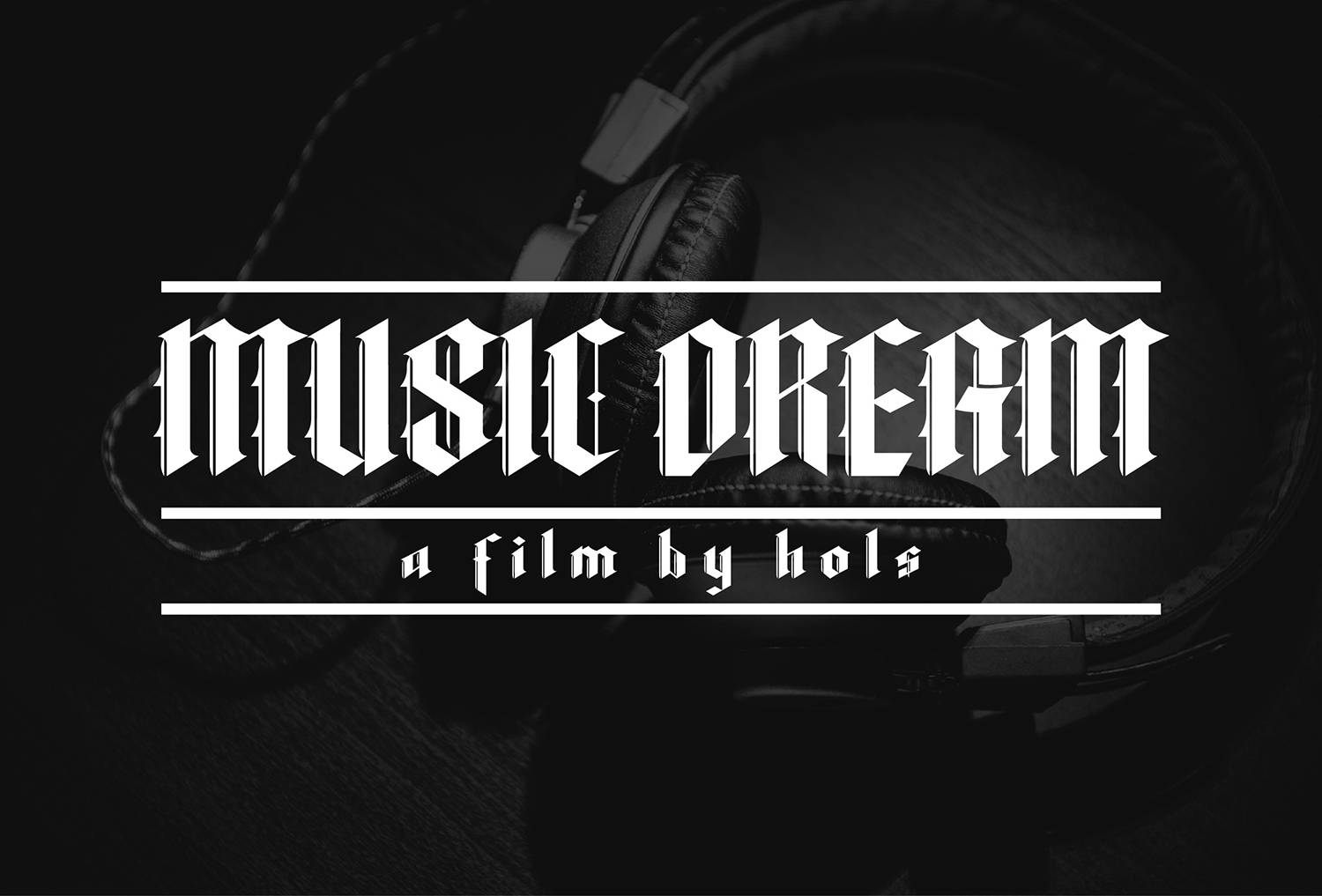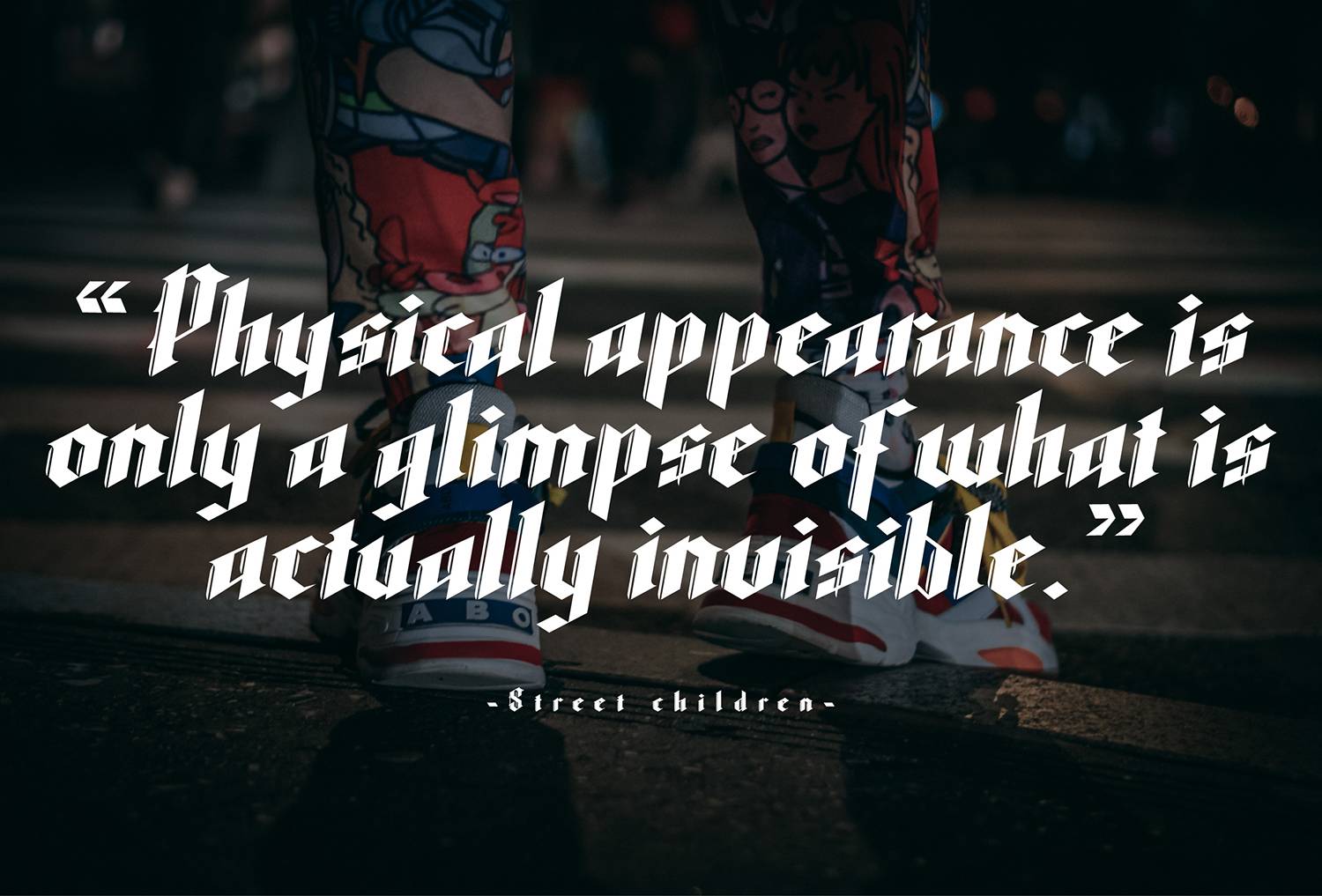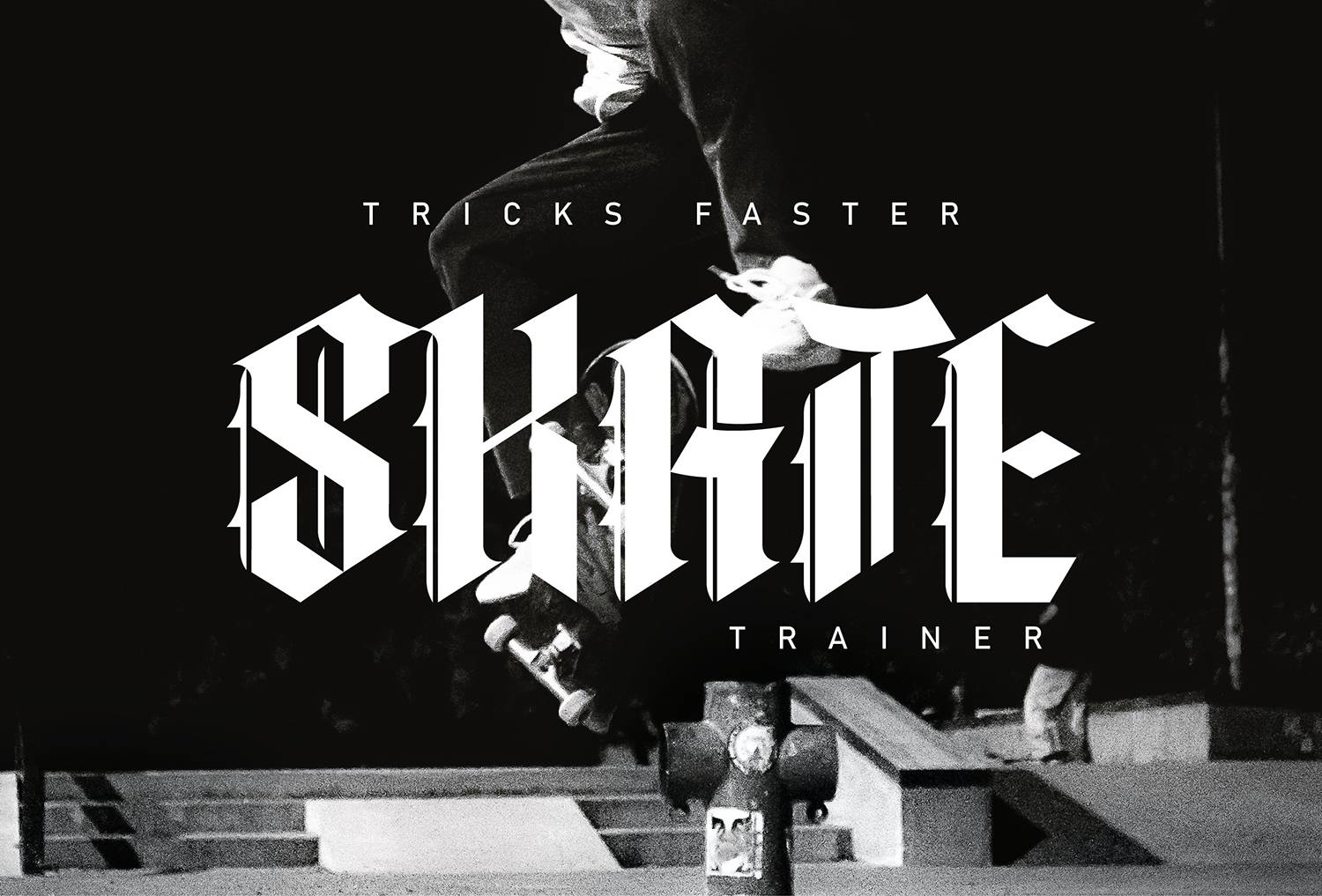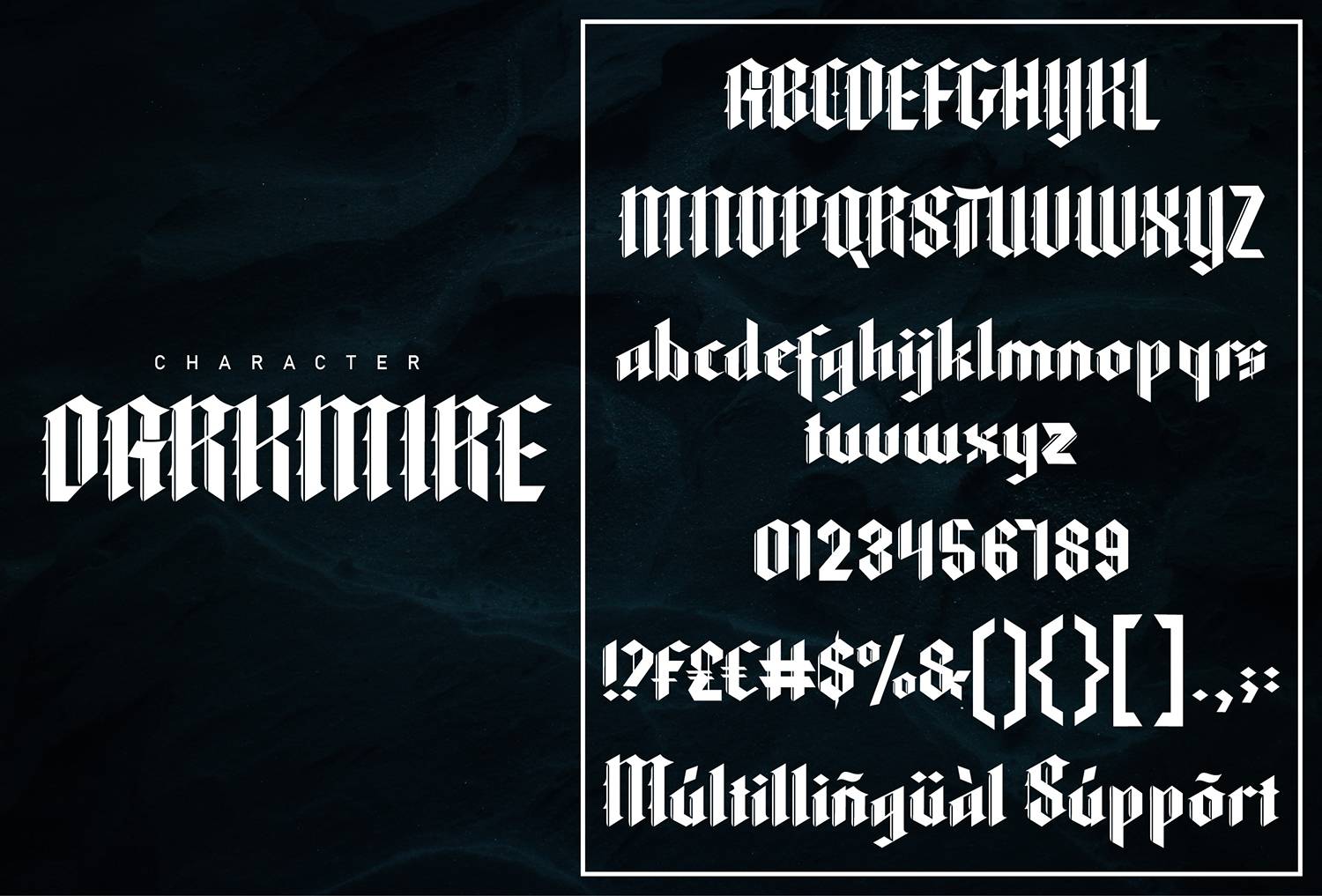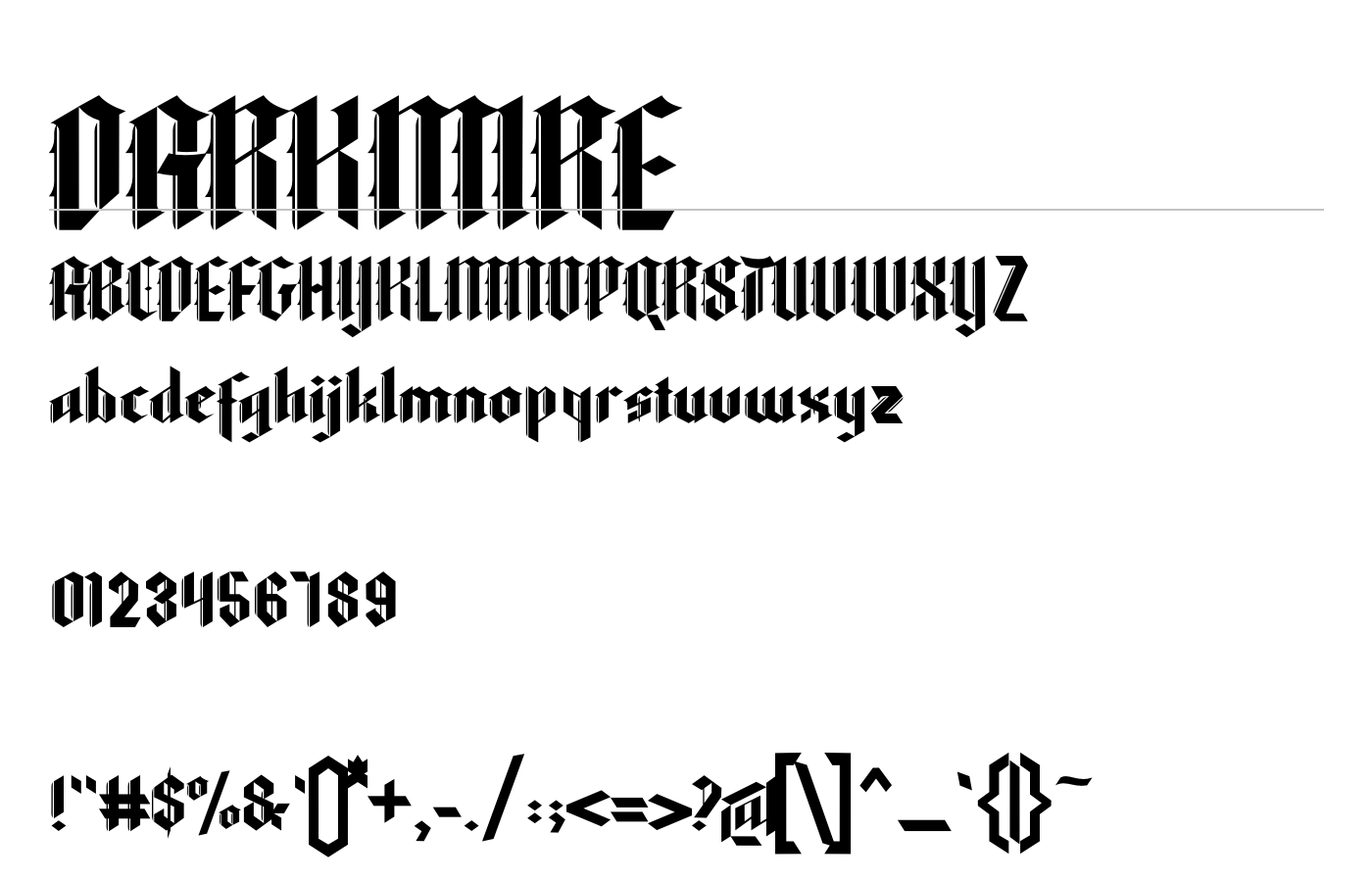
Darkmire is a bold blackletter-style font with sharp, angular strokes and high contrast between thick and thin lines, giving it a dramatic and gothic appearance. Its condensed letterforms and intricate details make it ideal for creating striking headlines and logos that evoke a dark, medieval, or mysterious vibe. This font works best in designs needing a strong, vintage yet edgy personality, such as branding for alternative fashion, heavy metal music, or fantasy-themed projects.
Darkmire Font
About Darkmire Font
| Font family | Darkmire Font |
| Designer | AKHMAD RIYAN DANUARTA |